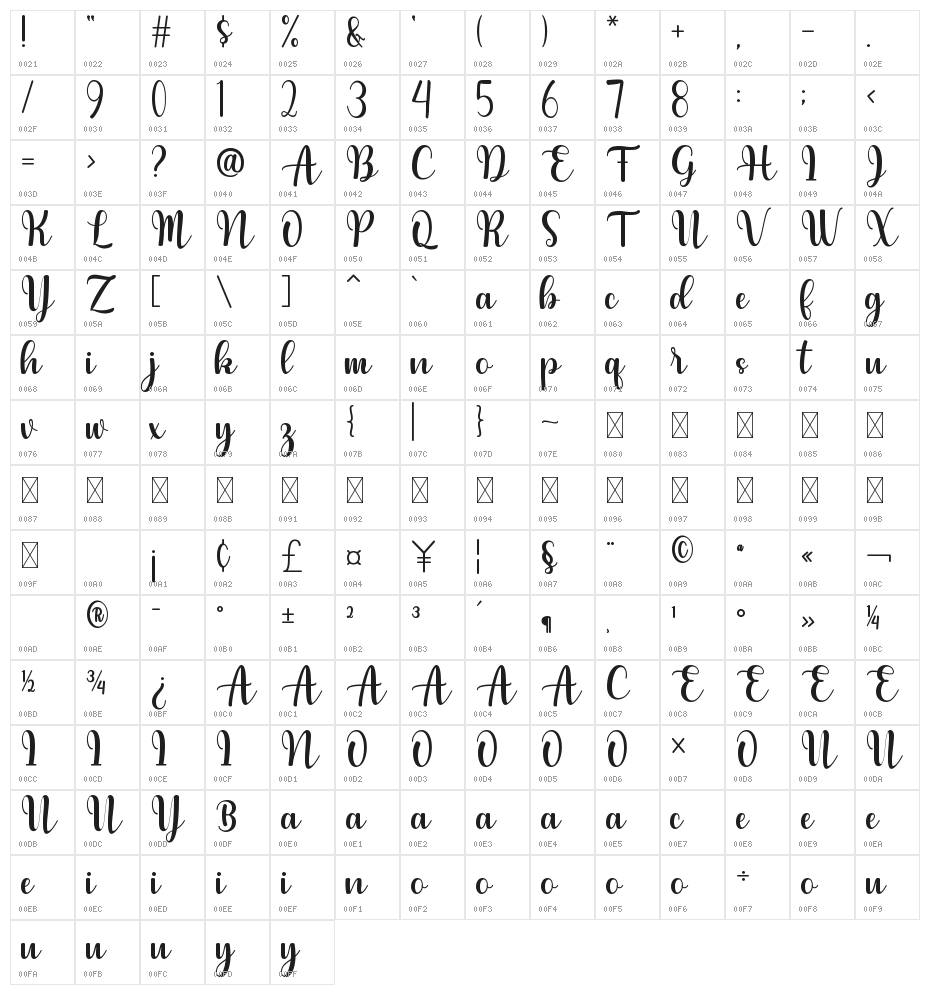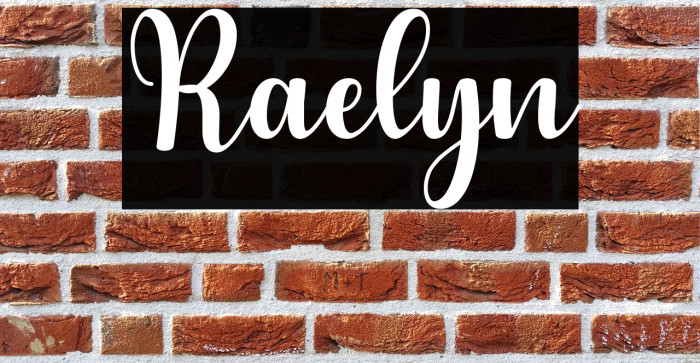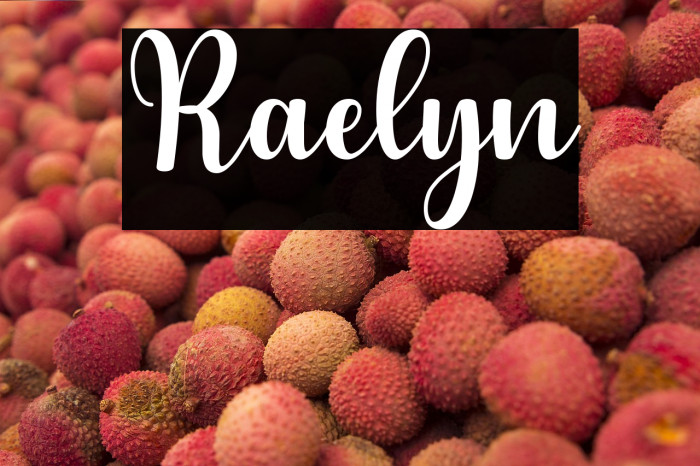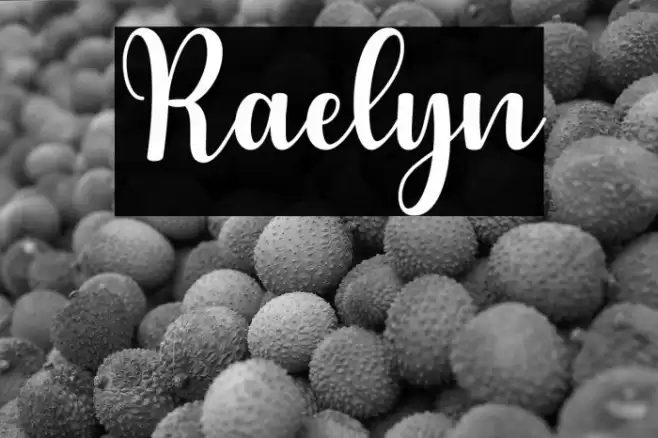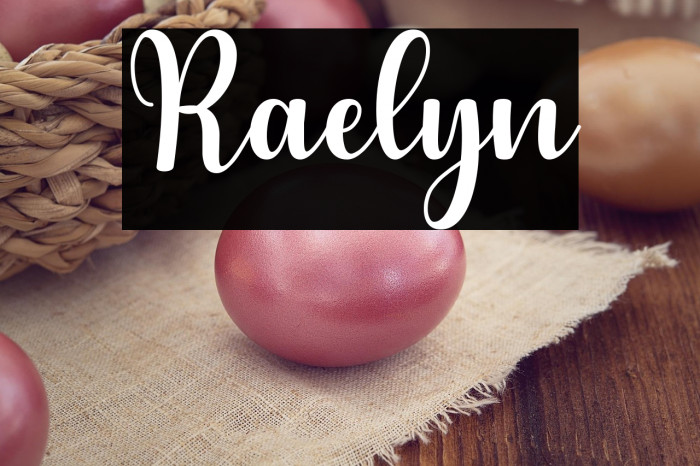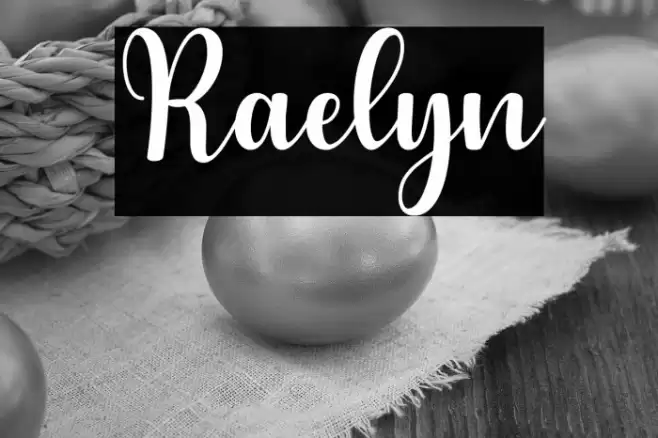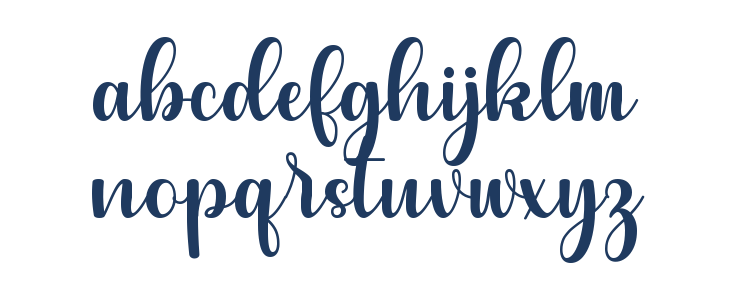
Raelyn Font
Raelyn Description
This font features a modern, handwritten style with a playful and elegant flair. The uppercase letters are bold and slightly slanted, giving them a dynamic appearance. The lowercase letters are more fluid, with smooth curves and loops that add a sense of movement. The numbers are consistent with the overall style, maintaining the same boldness and slight slant. Special characters are creatively designed, fitting seamlessly with the alphabet. The font's overall look is cohesive, making it suitable for a variety of creative projects.
| Proposed Projects | Ideal for invitations, greeting cards, branding, and social media graphics. |